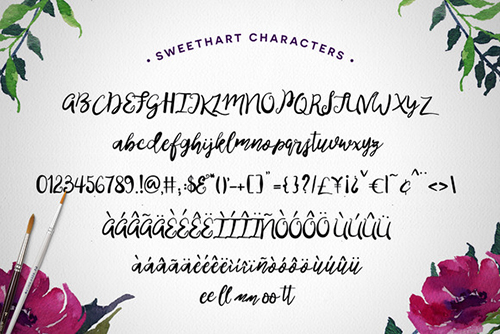
CM - Sweethart Script + Vectors Font 375527
- Sweethart is a fun & flirty script font with some rad bonuses! It’s fat-to-thin brush strokes and imperfect baseline give it a fun and stylish aesthetic perfect for typography, branding, logo design, invitations, and prints. This package comes with an OTF, TTF, and Webfont file of Sweethart; and may be used for personal or commercial uses! The font includes 26 capitals, 26 lowercase, full punctuation, and international language support.